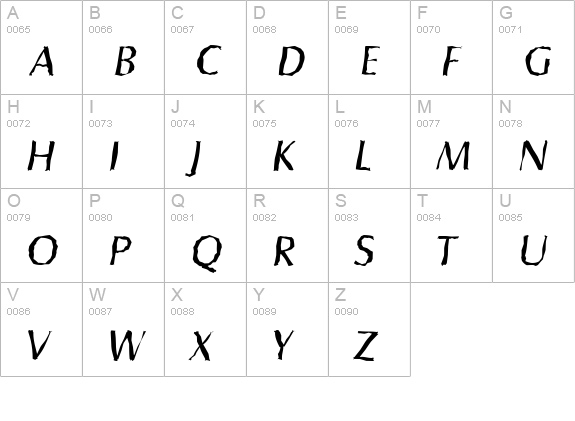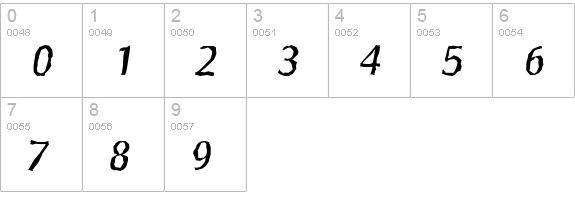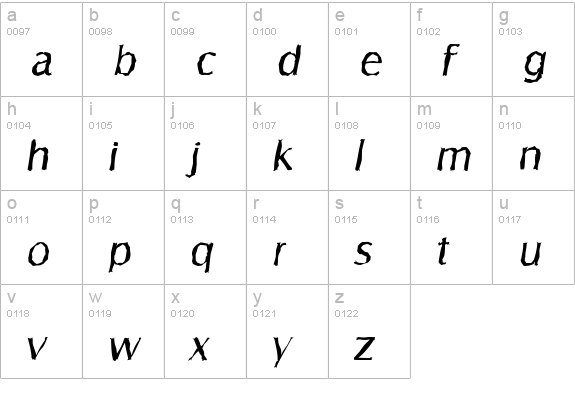
SalzburgRandom-Italic Font Details
SalzburgRandom-Italic is a distinctive, italic variant in the SalzburgRandom typeface family \xE2\x80\x94 well suited to design and typography projects.
SalzburgRandom-Italic font is a beautifully crafted typeface that exudes elegance and sophistication. Its unique italic style adds a touch of flair to any design project, making it perfect for creating eye-catching headlines, invitations, and more. The flowing curves and delicate details of SalzburgRandom-Italic will surely captivate your audience and leave a lasting impression. Best of all, SalzburgRandom-Italic font is completely free to download at FontsMarket.com. Whether you're a professional designer or just getting started with typography, this font is a valuable addition to your collection. Don't miss out on the opportunity to enhance your projects with the timeless charm of SalzburgRandom-Italic font. Download it today and let your creativity shine!